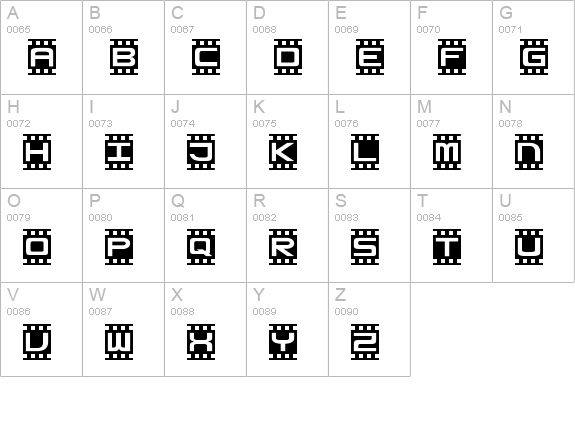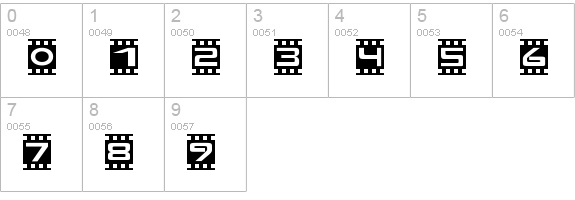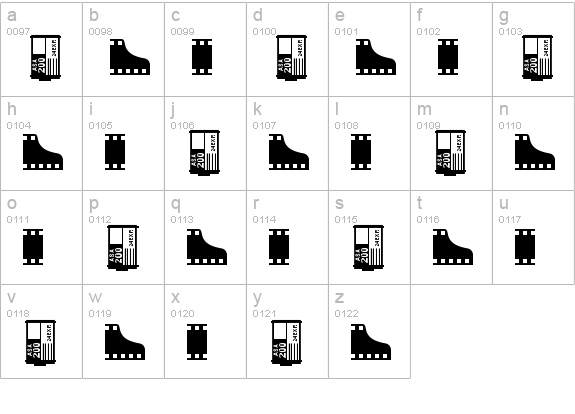
HourPhoto Font Details
HourPhoto font is a modern and elegant typeface that exudes sophistication and professionalism. With its sleek lines and stylish curves, HourPhoto is perfect for creating eye-catching designs and projects. This versatile font is suitable for a wide range of applications, from branding and advertising to invitations and social media posts. What makes HourPhoto font even more appealing is that it is available for free download at FontsMarket.com. This means that you can easily add this beautiful font to your collection without having to spend a penny. Don't miss out on the opportunity to elevate your designs with the timeless elegance of HourPhoto font. Download it now and let your creativity shine!